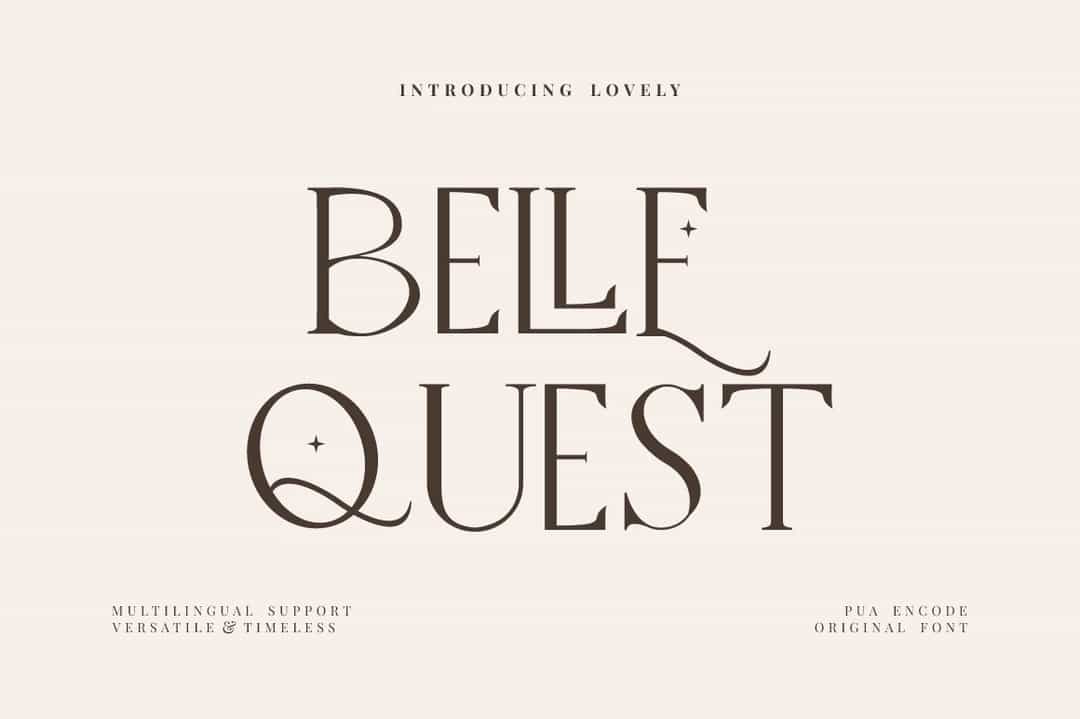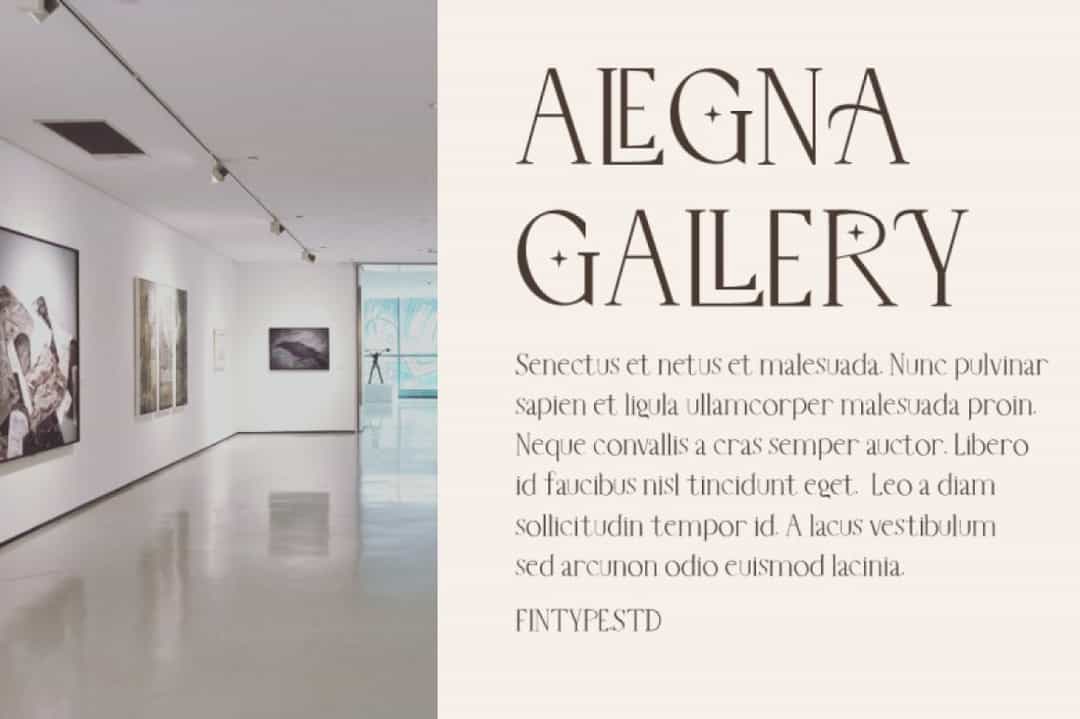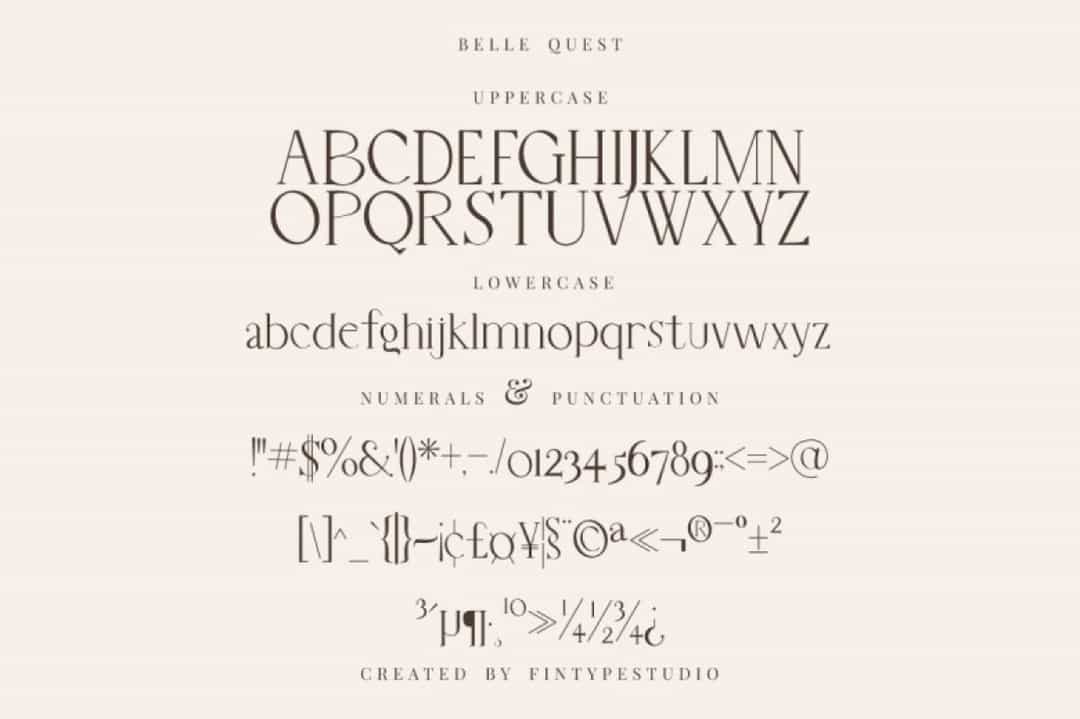
Belle Quest from FinTypeStudio is an elegant serif font designed for any project requiring beautiful serif style fonts, such as logos, branding and homeware designs, packaging for products, posters, quotes and shopping bags. T-shirt covers for books can also use Belle Quest; name cards greeting cards invitation cards labels watermarks photography as well as special occasions or any other unique projects that need the beautiful serif style font.